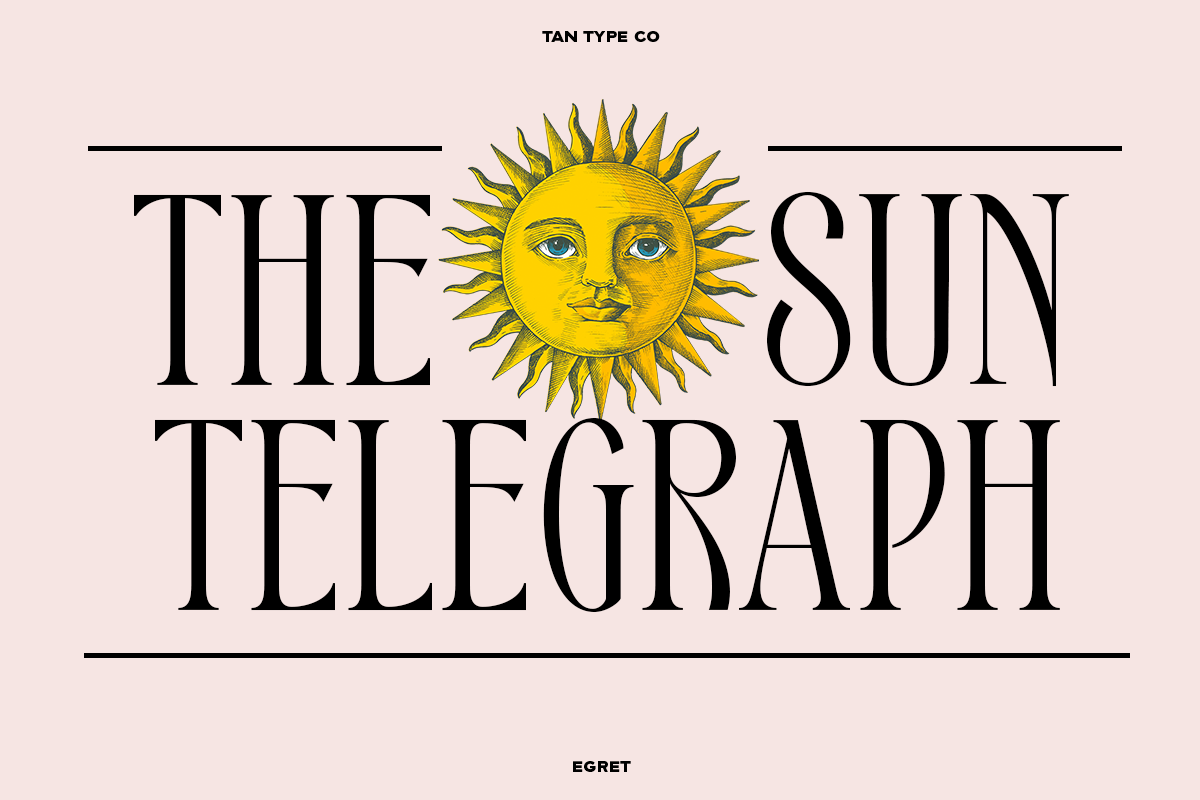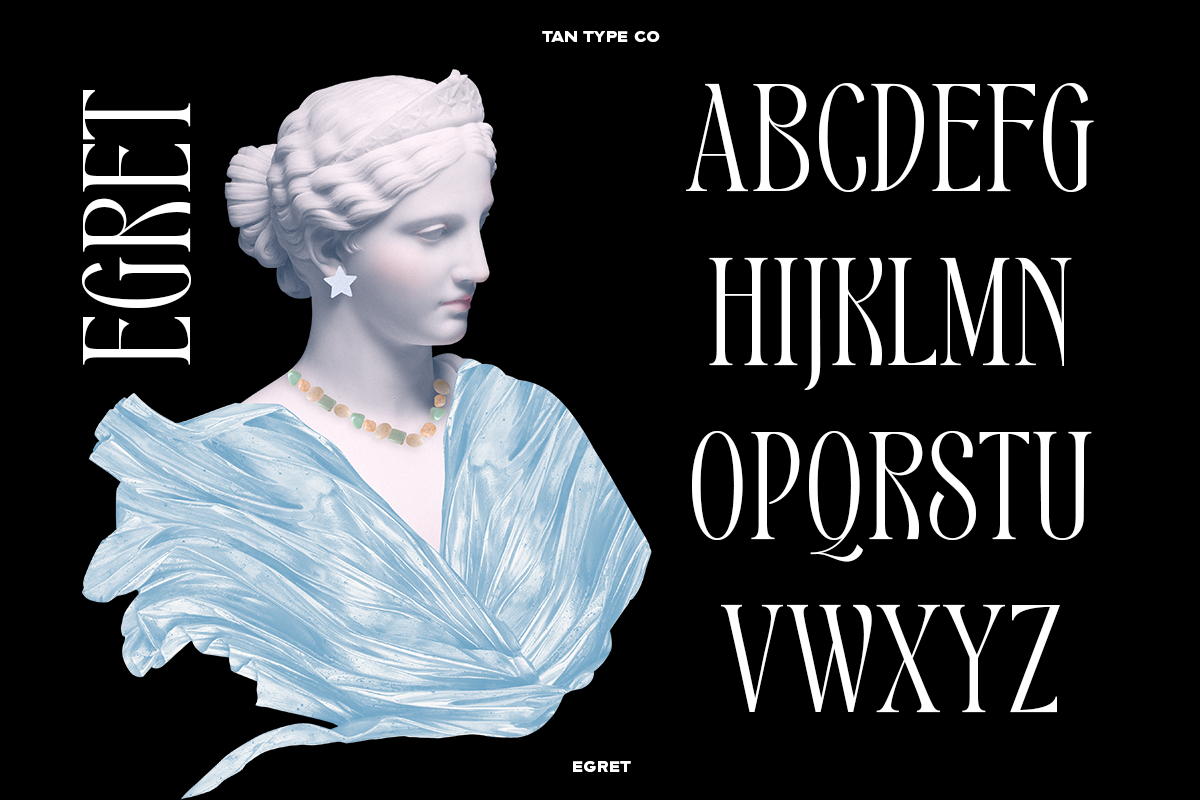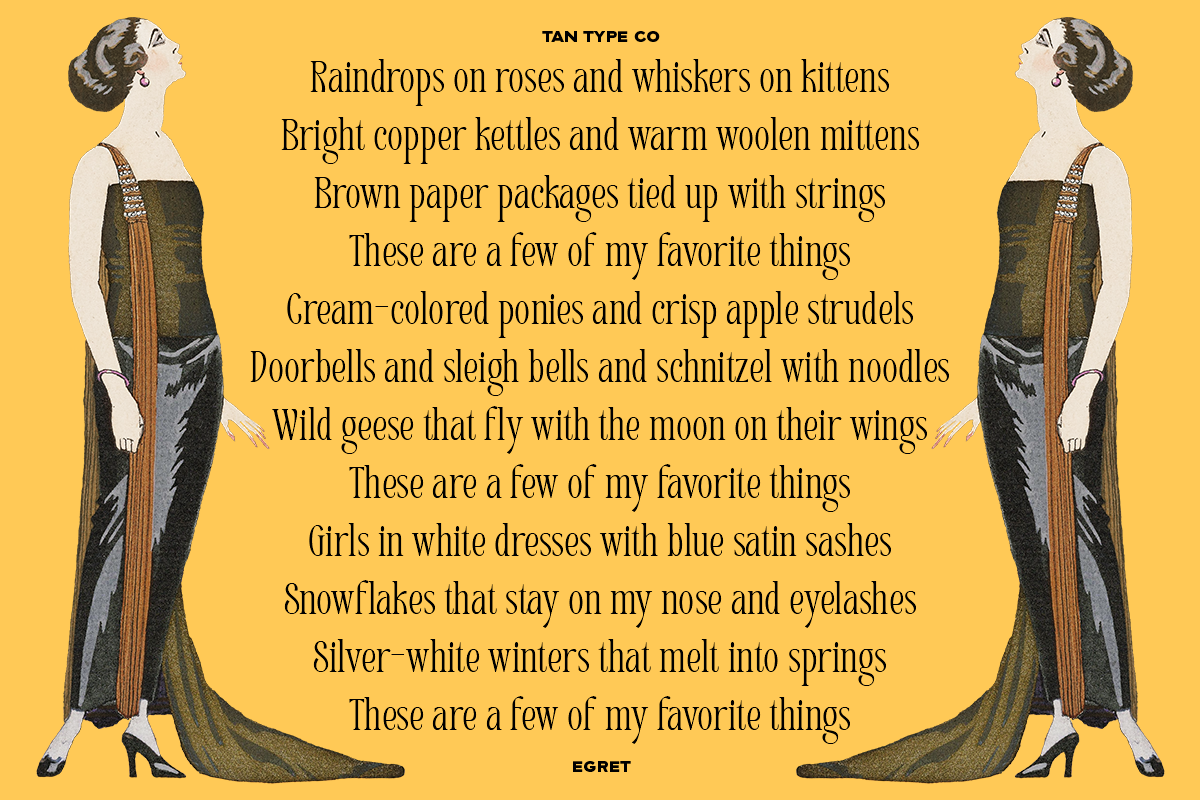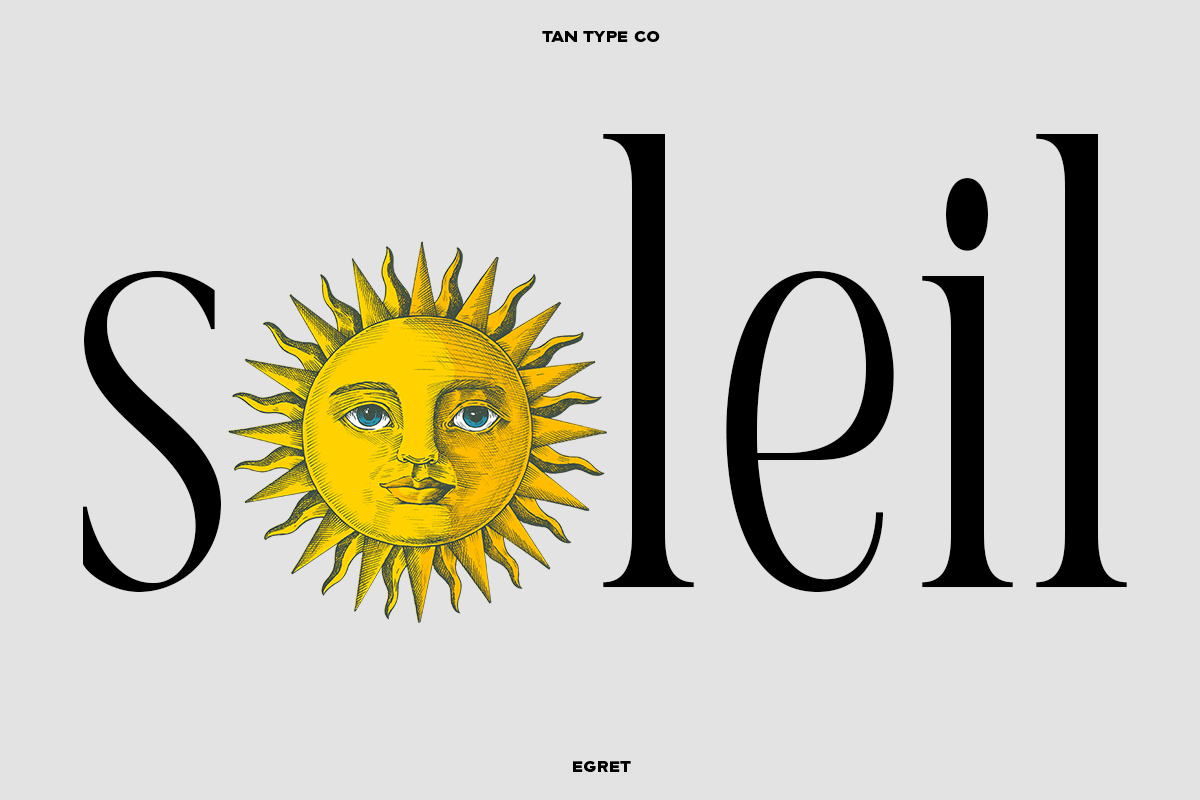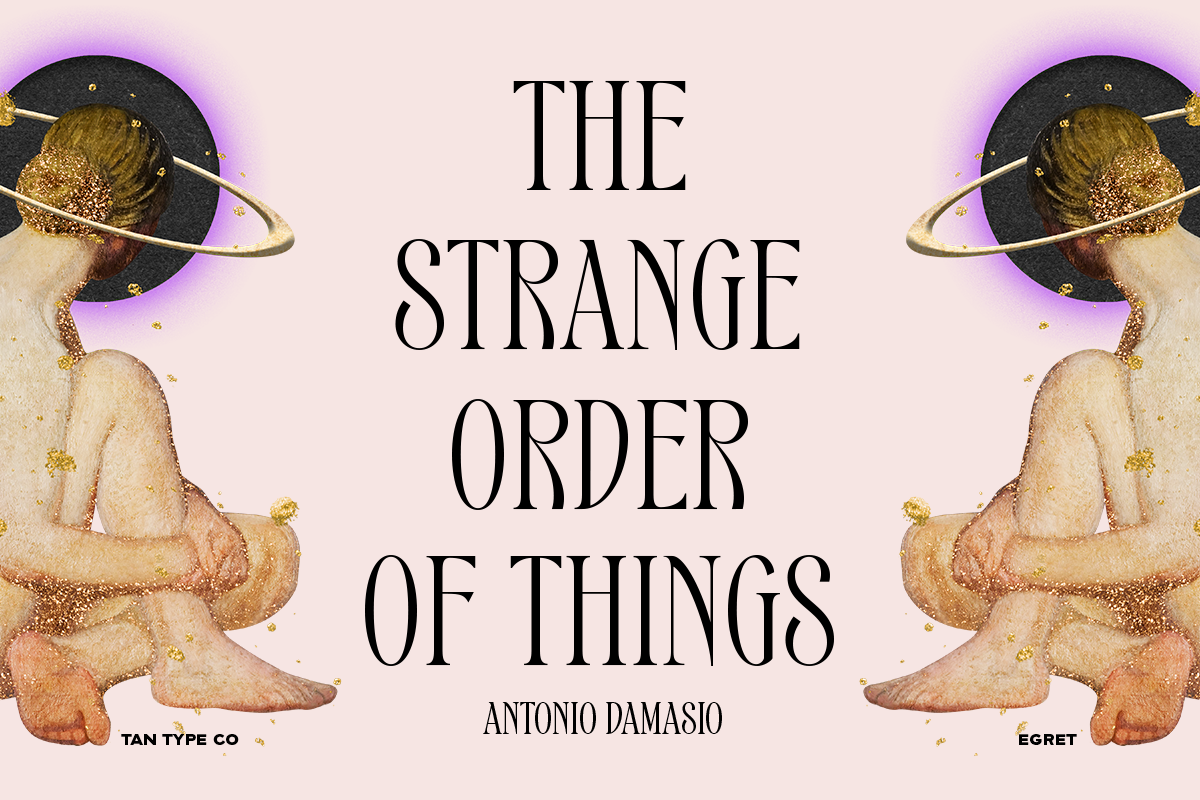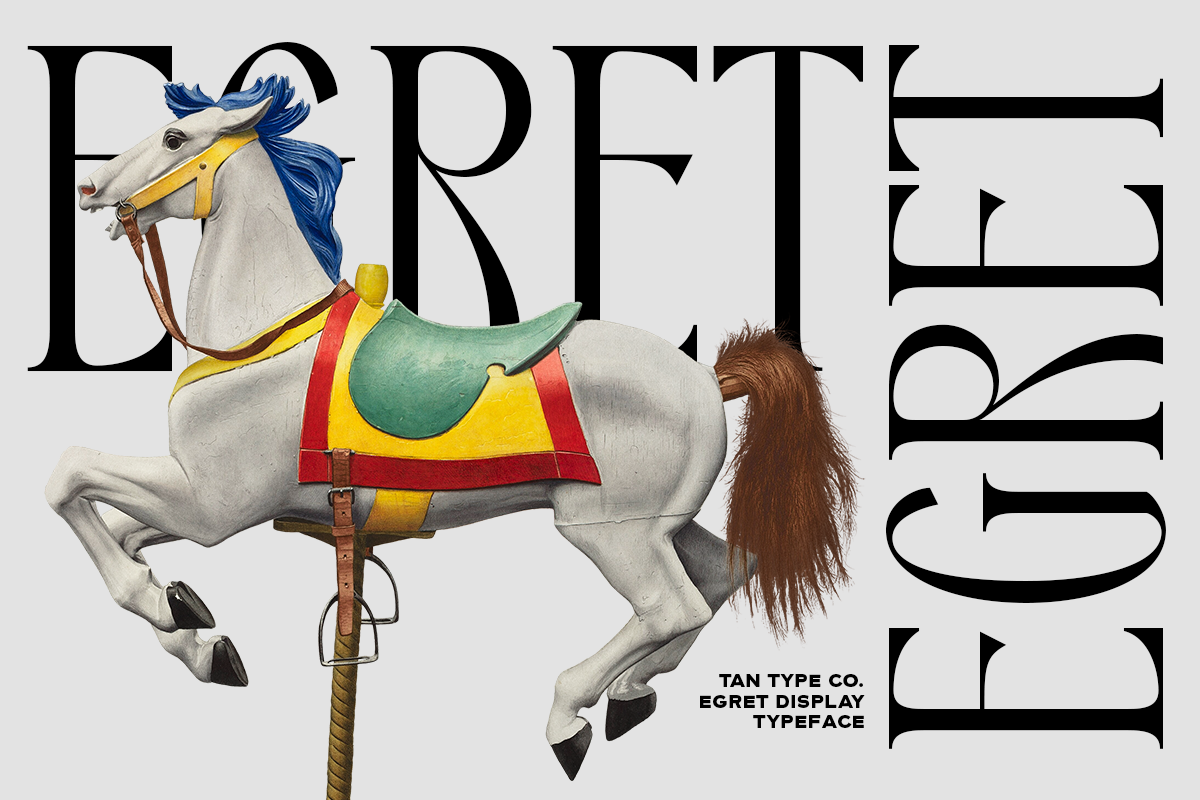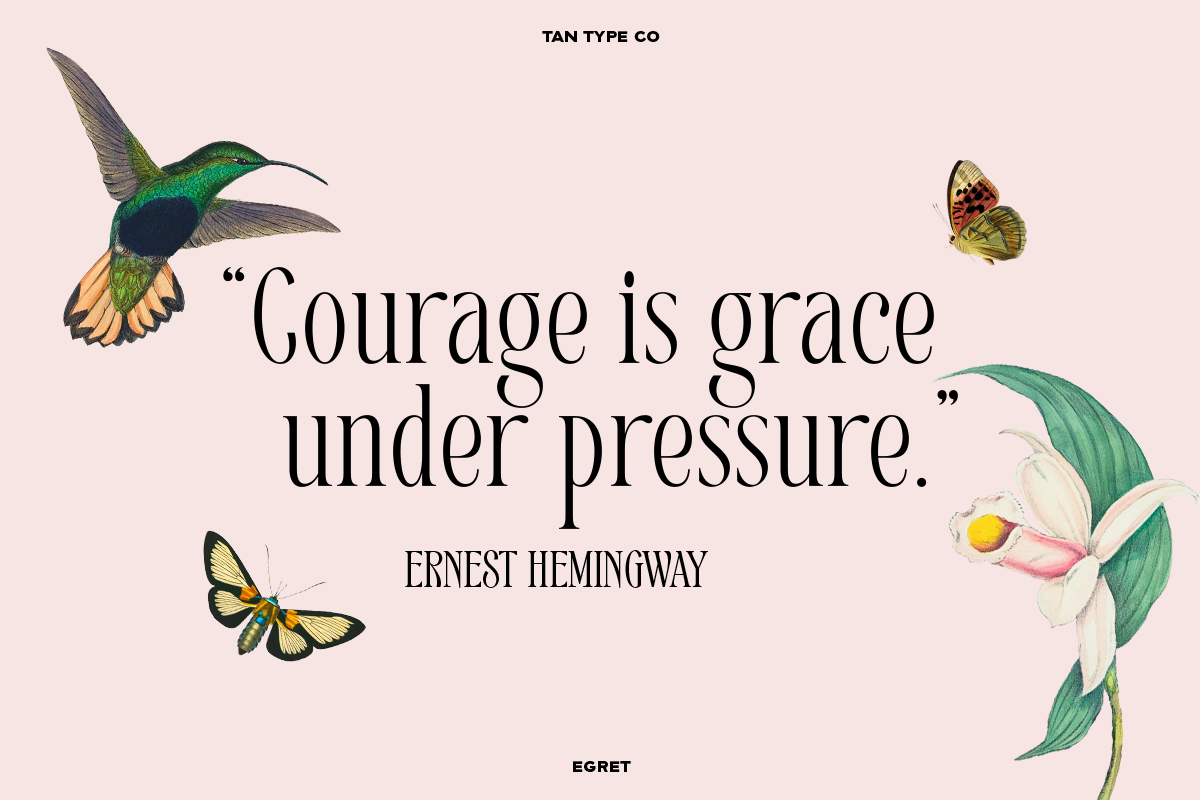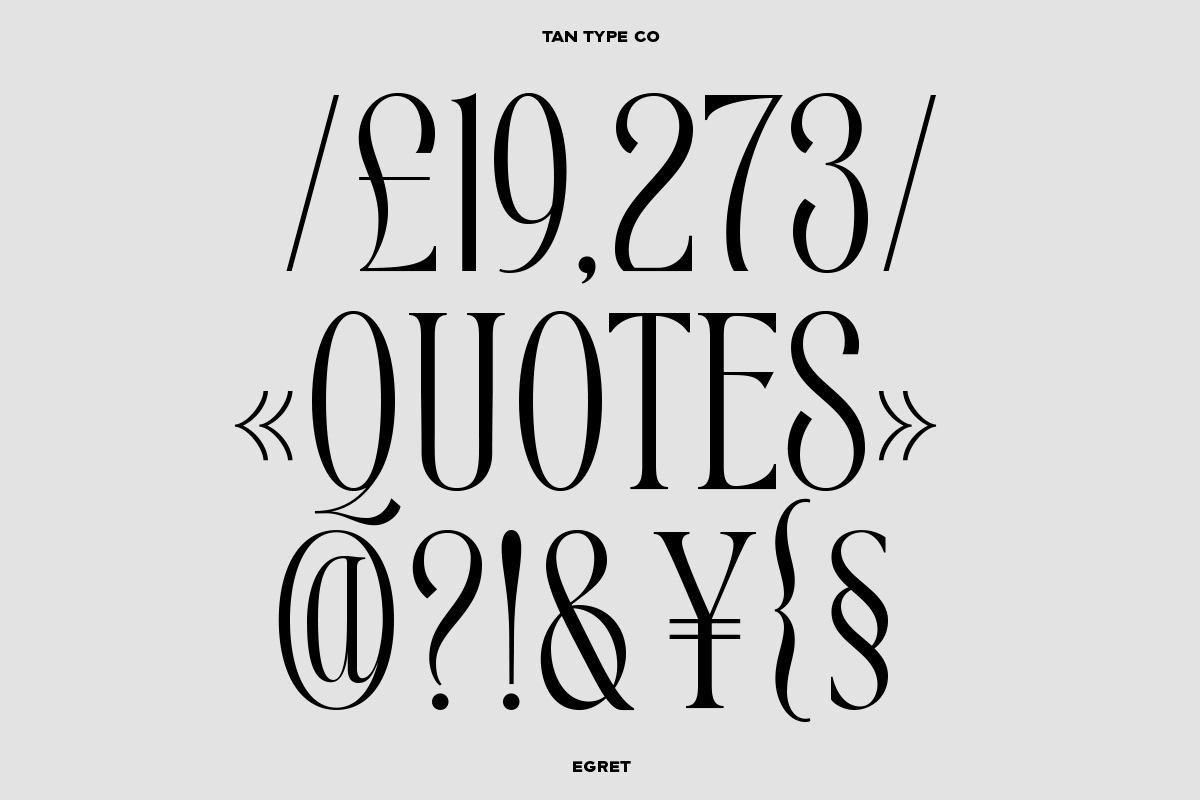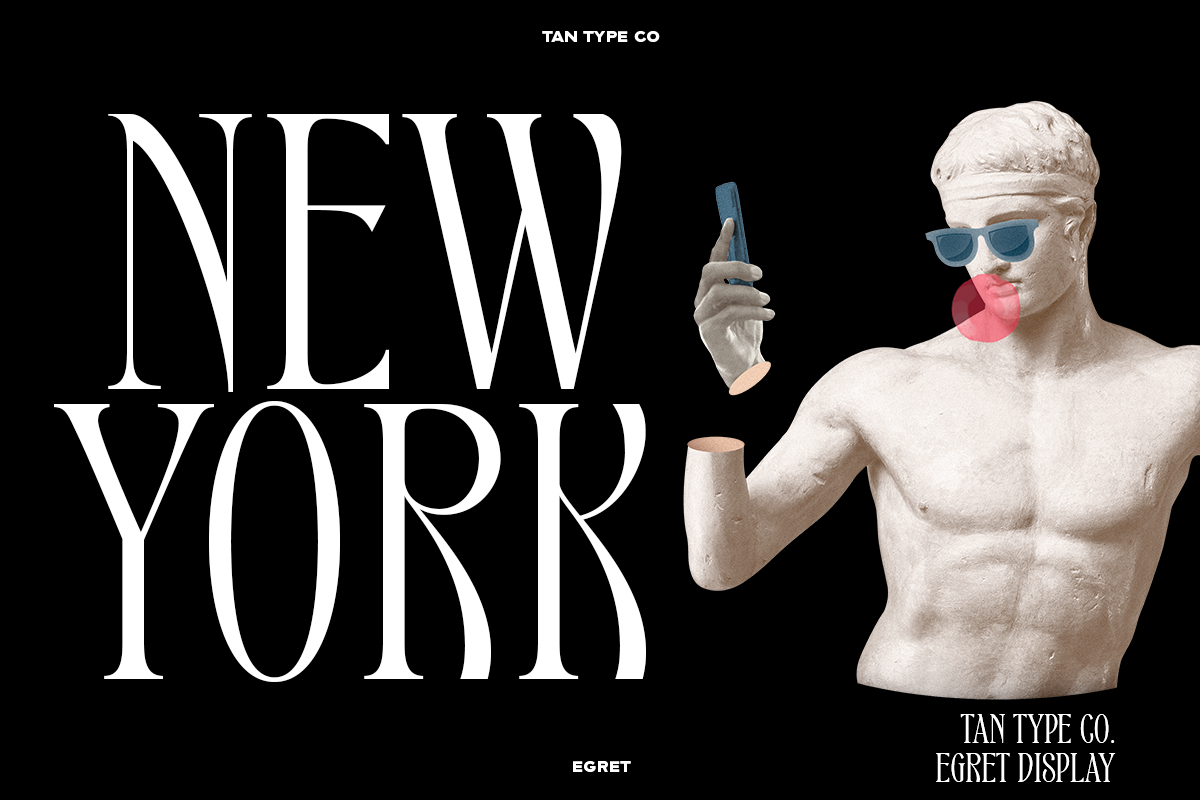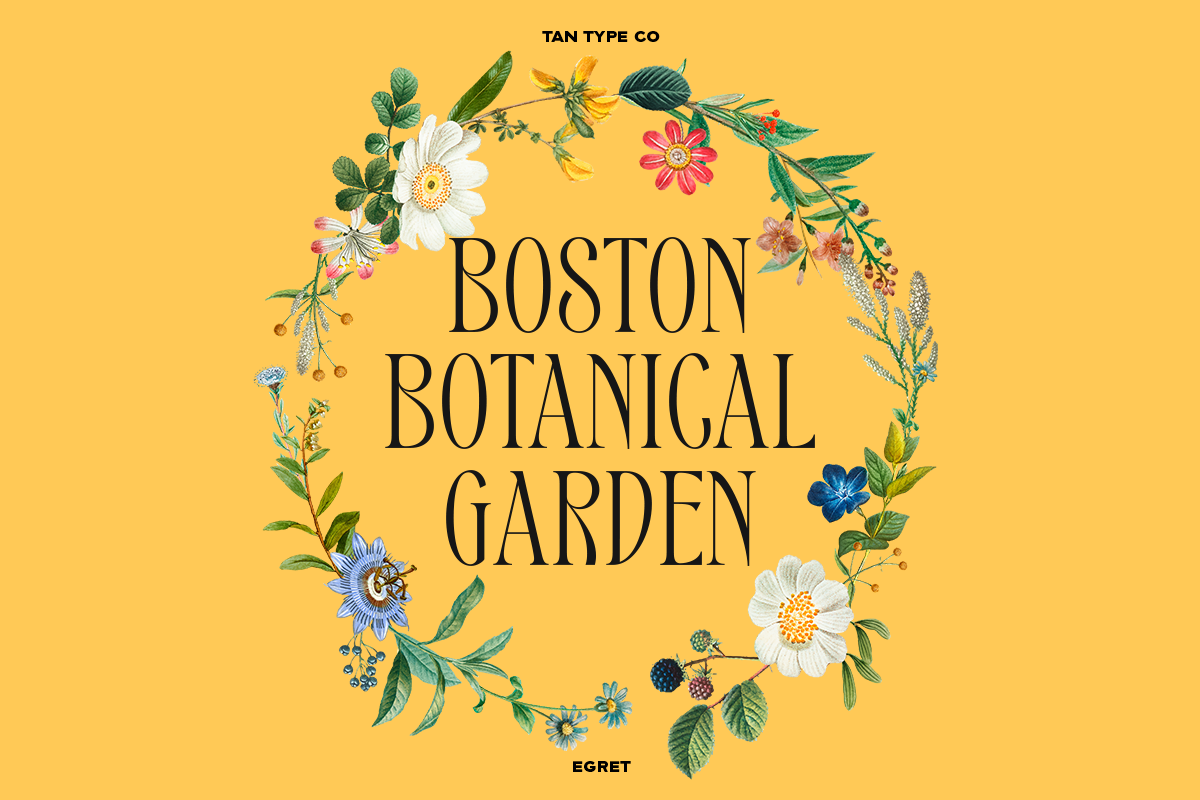
EGRET is a refined and statuesque display serif typeface with elegant contrast and elongated proportions. Its sculptural curves and sharp details evoke classical beauty, blending sophistication and strength into a striking typographic form.